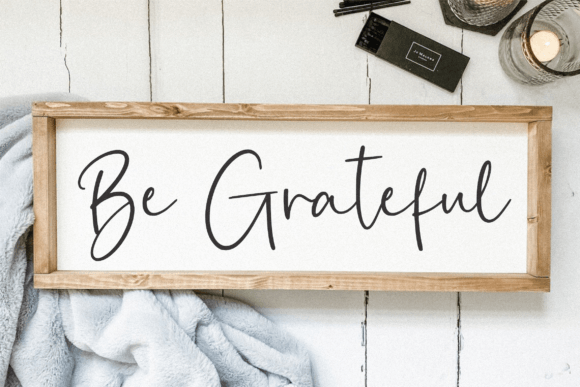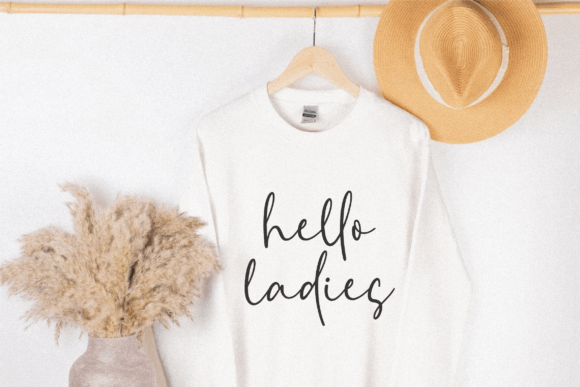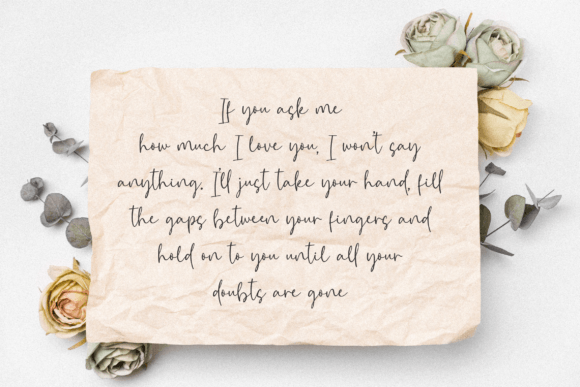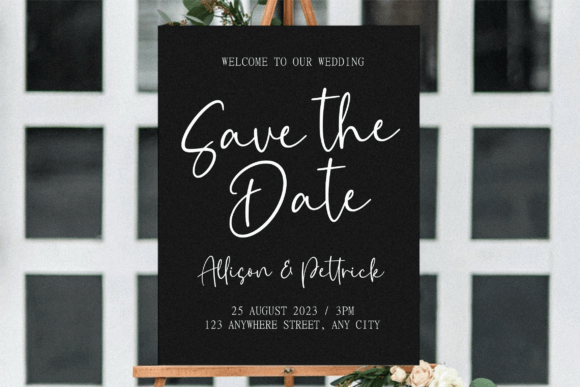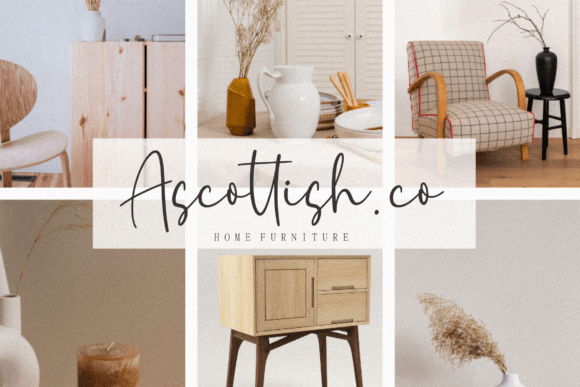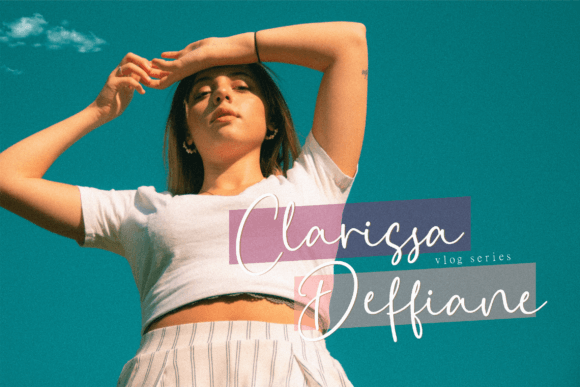
Brittania Delimonthe Font: A Elegant Handwritten Script Font
Brittania Delimonthe is a beautiful handwritten script font that has gained popularity among designers and crafters for its elegance and versatility. This font is perfect for a wide range of applications, from product packaging and branding projects to magazines, social media, weddings, and more. In this article, we’ll explore the features and benefits of Brittania Delimonthe font and why it’s a great addition to your typography collection.
What is Brittania Delimonthe Font?
Brittania Delimonthe is a handwritten script font that exudes elegance and sophistication. Its flowing lines and cursive connections make it perfect for creating beautiful and eye-catching text designs. The font is designed to be highly legible, making it suitable for use in a variety of contexts, from body text to headings and titles.
Key Features of Brittania Delimonthe Font
- Handwritten Script Style: Brittania Delimonthe has a unique handwritten script style that sets it apart from other fonts. Its elegant and flowing lines make it perfect for creating beautiful text designs.
- High Legibility: The font is designed to be highly legible, making it suitable for use in a variety of contexts, from body text to headings and titles.
- Versatile: Brittania Delimonthe is a versatile font that can be used in a wide range of applications, from product packaging and branding projects to magazines, social media, weddings, and more.
Uses of Brittania Delimonthe Font
Brittania Delimonthe font is perfect for a wide range of applications, including:
- Product Packaging: The font’s elegant and sophisticated style makes it perfect for product packaging, adding a touch of luxury and sophistication to your brand.
- Branding Projects: Brittania Delimonthe is a great choice for branding projects, helping to create a consistent and cohesive visual identity for your brand.
- Magazines and Editorials: The font’s high legibility and elegant style make it perfect for use in magazines and editorials, adding a touch of sophistication to your text designs.
- Social Media: Brittania Delimonthe font is perfect for use on social media, adding a touch of elegance and sophistication to your posts and stories.
- Weddings and Events: The font’s beautiful and elegant style makes it perfect for use in wedding invitations, programs, and other event materials.
Why Choose Brittania Delimonthe Font?
There are many reasons why you should choose Brittania Delimonthe font for your next design project. Here are a few:
- Unique and Elegant Style: Brittania Delimonthe has a unique and elegant style that sets it apart from other fonts.
- High Quality: The font is designed to be high-quality, with clean lines and smooth curves.
Brittania Delimonthe font is a beautiful and elegant handwritten script font that’s perfect for a wide range of applications. Its unique and sophisticated style makes it a great addition to your typography collection, and its high legibility and versatility make it easy to use in a variety of contexts. Whether you’re a designer, crafter, or DIY enthusiast, Brittania Delimonthe font is a great choice for your next project.
Overall, Brittania Delimonthe font is a great choice for anyone looking for a beautiful and elegant handwritten script font. Its unique style, high legibility, and versatility make it perfect for a wide range of applications, from product packaging and branding projects to magazines, social media, weddings, and more.